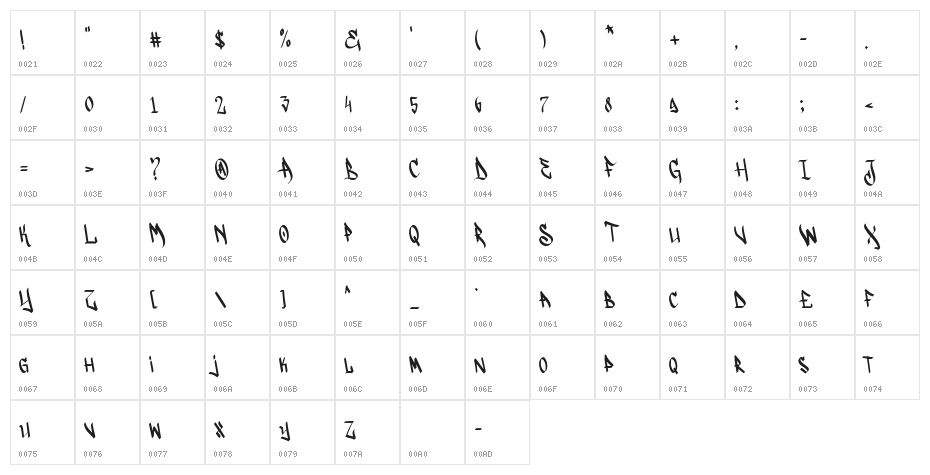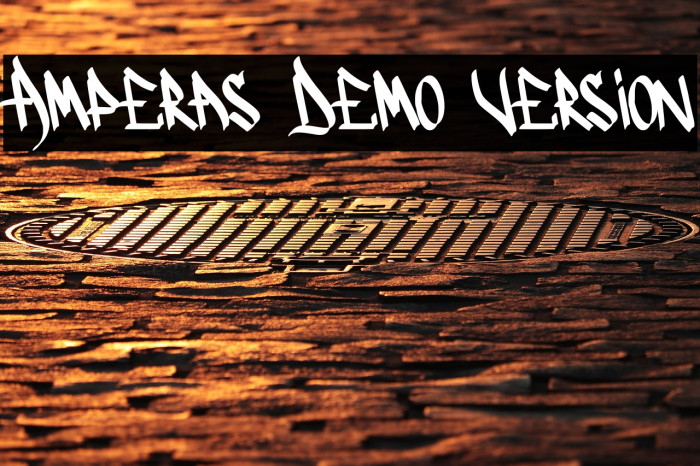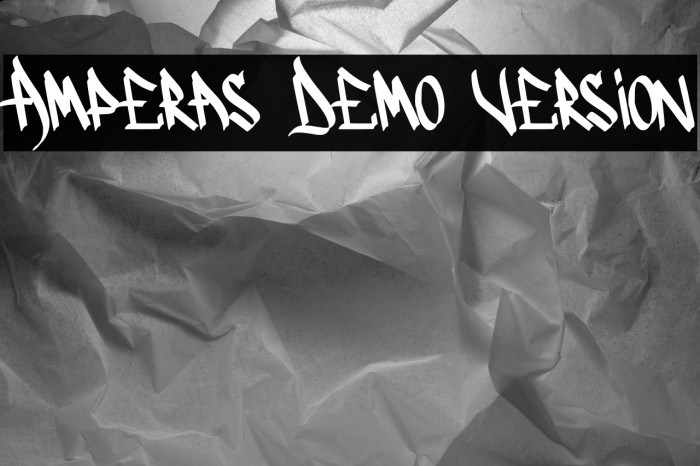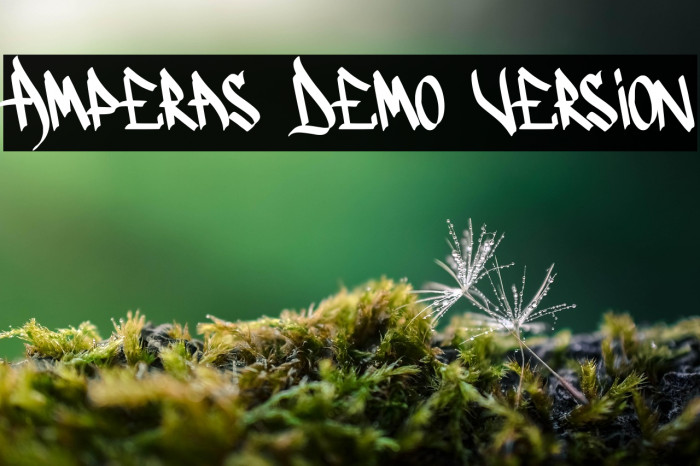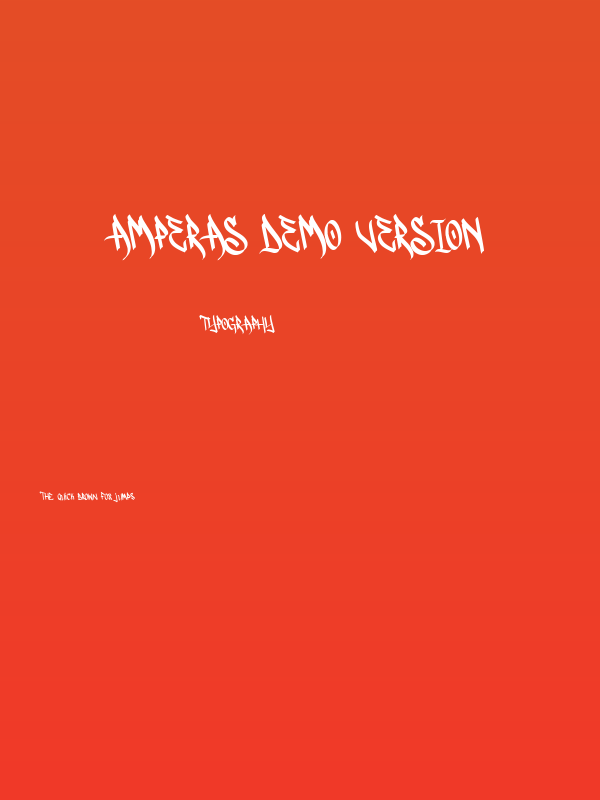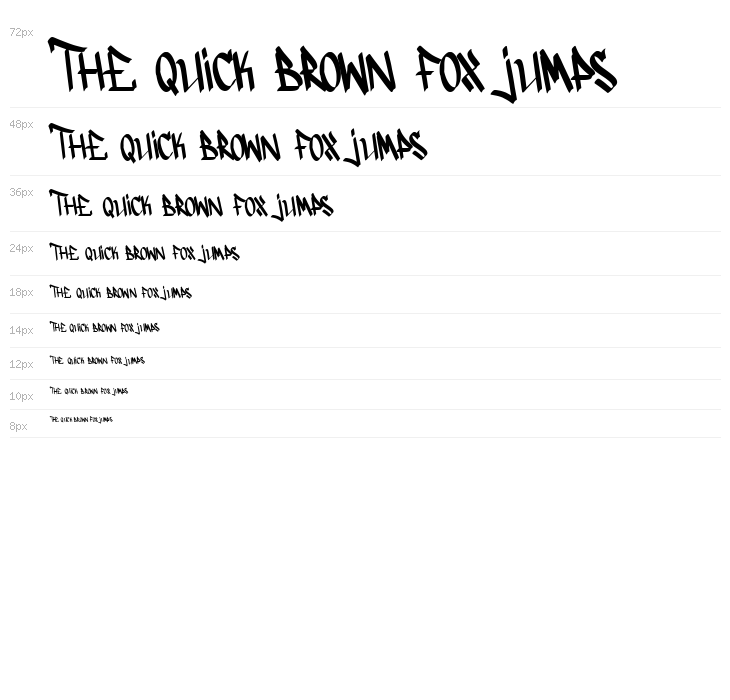
Amperas Demo Version Font
Amperas Demo Version Description
This font exhibits a bold and dynamic style, characterized by sharp, angular lines and a graffiti-like appearance. The uppercase letters are particularly striking, with exaggerated curves and points that give them a sense of movement and energy. The lowercase letters maintain this edgy aesthetic, though they are slightly more restrained in their form. Numbers and special characters follow the same design principles, ensuring a cohesive look across all glyphs. The overall impression is one of urban flair, making it ideal for projects that require a modern and rebellious touch.
| Overall Style | Modern, Urban |
| Proposed Projects | This font is perfect for streetwear branding, music album covers, urban art projects, and event posters that aim to capture a youthful and edgy vibe. |